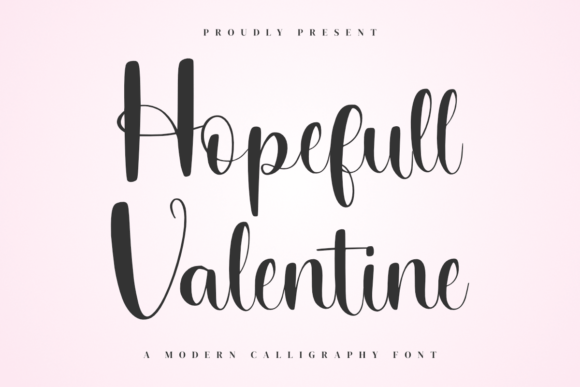
Hopefull Valentine: More Than Just a Script Font
When you first encounter Hopefull Valentine, you immediately sense its character. This isn't a rigid, mechanical typeface; it's a premium font with a living, breathing personality. Inspired by the fluidity of wedding invitation design and the boldness of beauty posters, it strikes a rare balance. It feels both spoiled—in the best, most luxurious sense—and deeply elegant. The letterforms flow with a natural, calligraphic rhythm, featuring graceful swashes and a consistent baseline that grounds its whimsy in professionalism.
As a display font, Hopefull Valentine is designed to be the star of the show. Its strength lies in headlines, logos, and short, impactful statements where its intricate details can shine. Think of it as the script font equivalent of a statement necklace. It draws the eye and sets a tone of sophistication, romance, or artisanal care. It’s a handwritten font that feels authentically crafted, not digitally generated, which is a crucial distinction for projects aiming for a human touch.
Where Hopefull Valentine Truly Excels
The versatility of this creative font is one of its greatest assets. It’s not confined to a single niche, making it a valuable addition to any designer's or creator's toolkit.
For the Brand Builder and Entrepreneur
If you're developing a brand identity for a boutique, a bakery, a floral studio, or a luxury service, Hopefull Valentine can become the cornerstone of your visual language. Its elegant personality helps establish an immediate perception of quality and care. Use it for your logo, packaging design headers, or the masthead of your lookbook. Paired with a clean sans serif font for body text, it creates a font pairing that is both striking and readable, ensuring your brand looks polished and intentional across all touchpoints, from your website to your social media graphics.
For the Crafter and Maker
This is where Hopefull Valentine’s practicality shines. Its clean paths and included commercial font license make it a workhorse for physical products. Imagine it on:
- Wedding Stationery: The most natural fit, for invitations, save-the-dates, and thank-you cards.
- Product Labels and Packaging: Perfect for artisanal goods, candles, soaps, and gourmet treats.
- Apparel and Accessories: Ideal for elegant quotes on t-shirts, hoodies, and tote bags, especially for sublimation and embroidery projects.
- Home Decor: Creating beautiful wall art, custom mugs, and decorative pillows.
- Digital Crafts: For Cricut and Silhouette users, its well-defined letterforms are great for stickers, decals, and labels.
For the Publisher and Content Creator
In editorial design, use Hopefull Valentine for chapter titles, pull quotes, or section headers in magazines, cookbooks, or children's books. Its friendly yet sophisticated style can make content feel more accessible and engaging. For bloggers and content creators, it can elevate the design of digital lead magnets, PDF guides, and course materials, adding a professional layer of design that builds trust with your audience.
Making It Work: Practical Font Guidance
Choosing a script font is only half the battle; using it effectively is what separates good design from great. Here’s how to get the most out of Hopefull Valentine.
Evaluate the Project Fit
Ask yourself: what is the primary goal of this project? If it’s to convey modern minimalism, a heavy script might not be the best choice. However, if the goal is to evoke romance, elegance, artisan quality, or playful sophistication, Hopefull Valentine is a strong contender. It’s less suited for long paragraphs of body copy but excels in roles where personality and visual impact are paramount.
Mastering Readability and Hierarchy
The beautiful complexity of a display font like this means you must prioritize readability. Always test your text at the intended size and in the intended context. For a logo, ensure it remains legible when scaled down to a favicon. For a t-shirt design, check that the words are clear from a reasonable distance. Use it to create a strong visual hierarchy—pair it with a neutral serif font or sans serif font to ensure your body text remains comfortable to read. This contrast not only improves function but also makes the script stand out more effectively.
Explore the Font’s Capabilities
A good premium font often comes with more than just the basic letters. Take time to explore the full character map of Hopefull Valentine. You may find stylistic alternates, ligatures, and swashes that can add even more flair and customization to your designs. These extras are what allow you to create unique, one-of-a-kind typographic compositions.
In the landscape of modern typography, Hopefull Valentine holds its own as a versatile and emotionally resonant typeface. It’s a design asset that does more than just display words; it communicates a feeling. By understanding its strengths and applying it thoughtfully, you can leverage its elegant script to create designs that are not only beautiful but also strategically effective, building stronger connections with your audience and elevating the perceived value of your work.